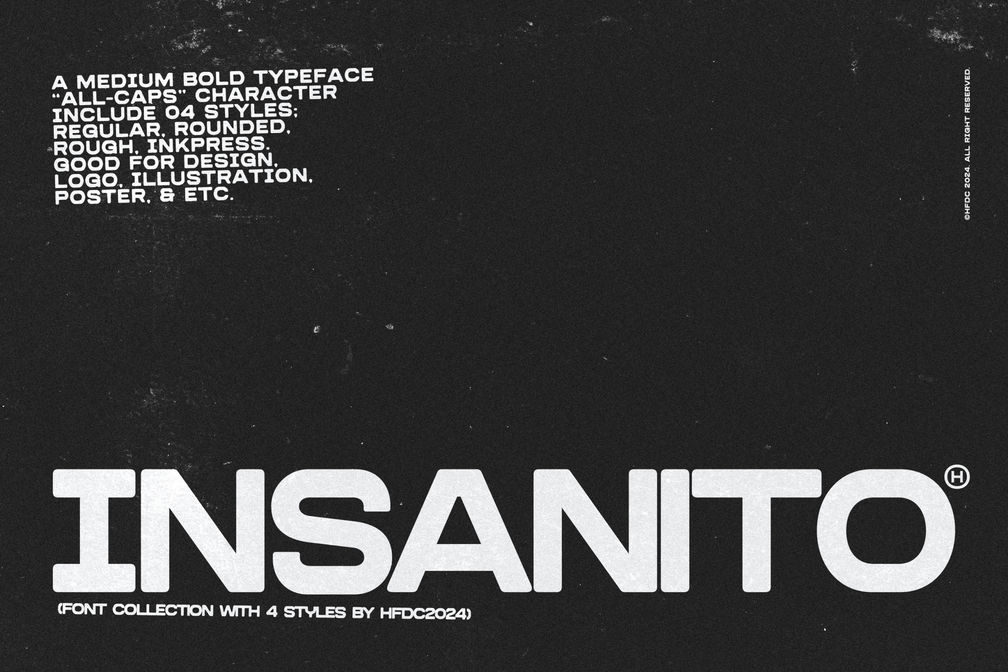
Insanito Typeface
Insanito  is a typeface based on the slightly expanded sans serif category, which is suitable for retro or modern designs, and all characters are all caps.
You will get 4 cool and unique styles that you can explore in your designs, these 4 styles are, regular, round, inkpress, and rough.
Insanito is suitable for you to use for headlines, titles on thumbnails, films, posters, books, logos, branding, etc.
• Insanito Regular
• Insanito Round
• Insanito Ink
• Insanito Rough
• All caps character
• Arrows
• Multilingual support